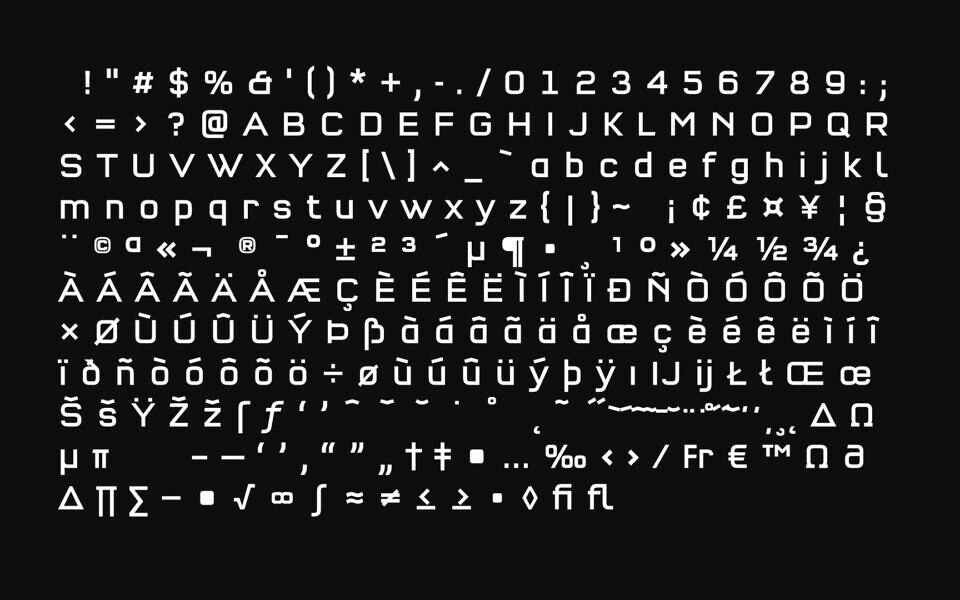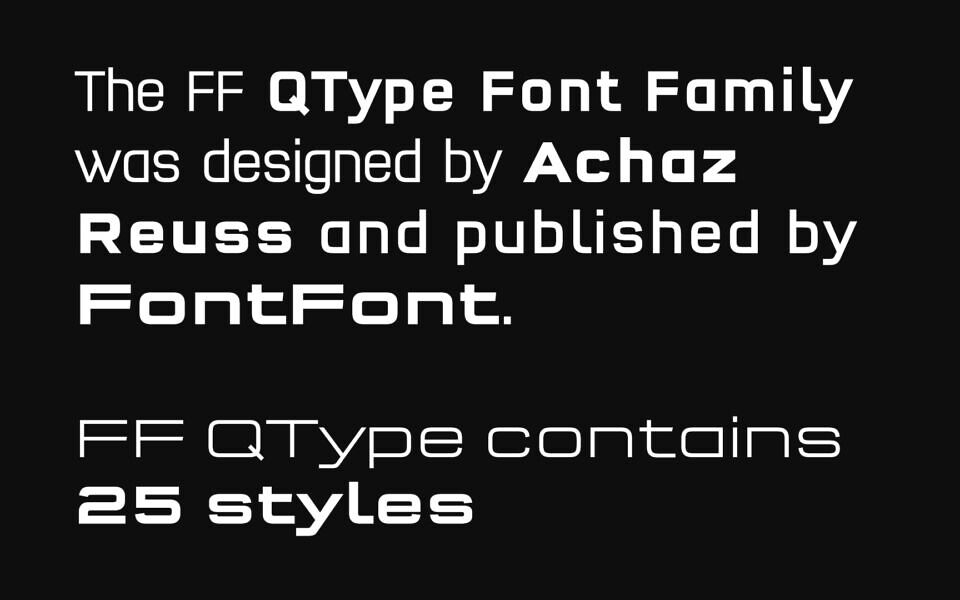
QType Font Family
Designed by German type designer Achaz Reuss in 2004, FF QType is a versatile display and sans-serif typeface family created for FontFont.
The collection includes 25 styles, ranging from Extra Light to Black, and is available in Compressed, Condensed, Normal, Semi Extended, and Extended widths. Its flexibility makes it an excellent choice for branding, logo design, advertising, packaging, posters, billboards, sports graphics, and other creative applications.
Designed by: Achaz Reuss